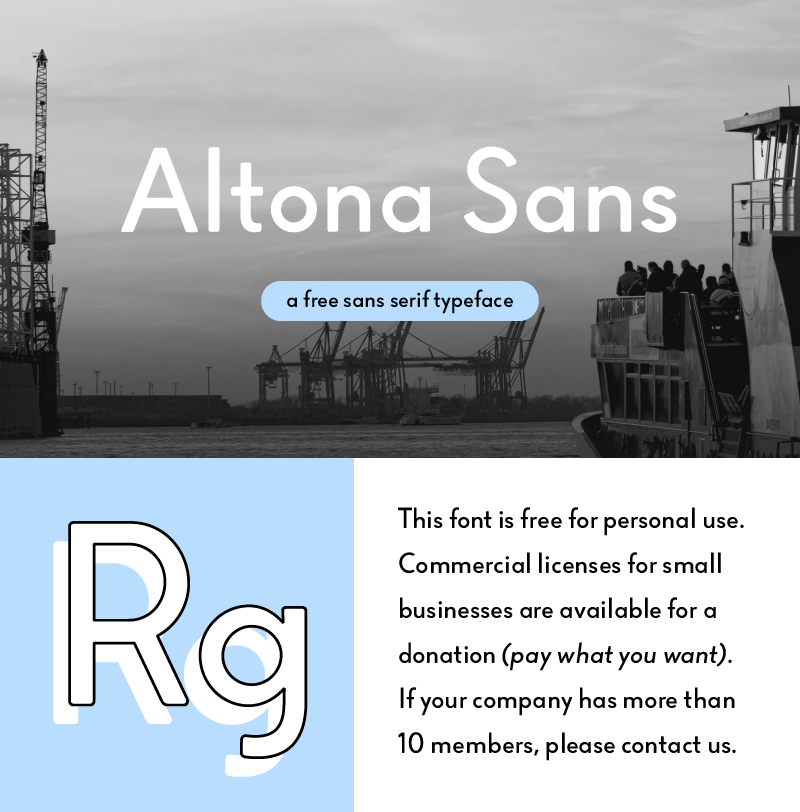
There are just a few places on the world where I truly feel home. And one of them is the beautiful German borough �Altona� located in my favorite city �Hamburg�. I�ve been working on this font project for almost five years now and I finally made the decision to finalise and release the first style for the �Altona Sans� Family. The intention was to create an unique and beautiful typeface, that can be accessed by everyone. That�s why I decided to make the full version FREE for personal use. But that�s not all: All small companies or brands with less than 10 employees gets to choose how much they want to pay to buy a commercial license. Every cent is most welcome and will be used to create more styles of this font family in the future. Of course every supporter will also receive future updates of the font and all future styles. So just go ahead and visit www.shapedfonts.com/altona to get your commercial license and become a supporter. Please note: if your company or client has more than 10 employees you�re going to need an extended license, a standard license won �t suffice. Please contact us at license@shapedfonts.com to get a quote. |